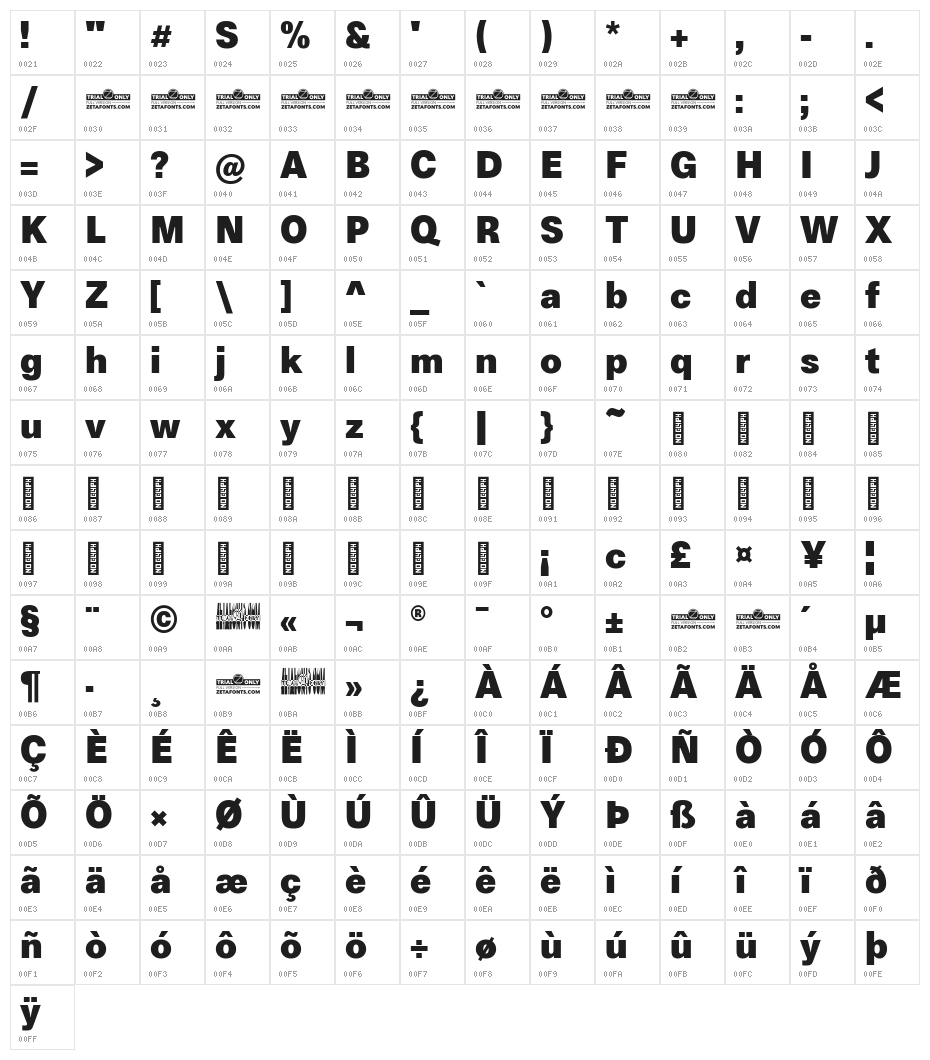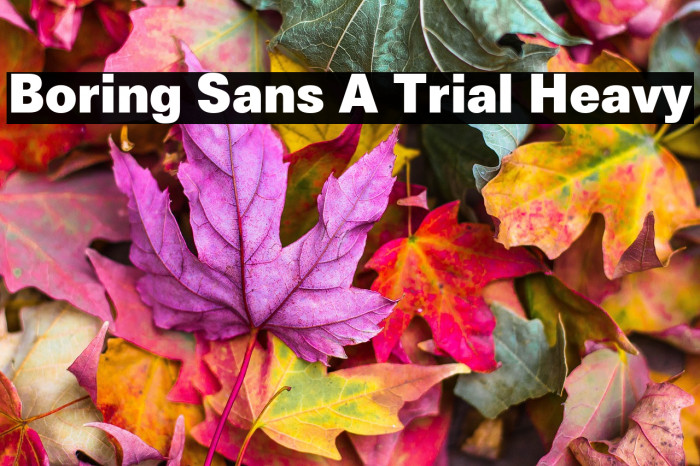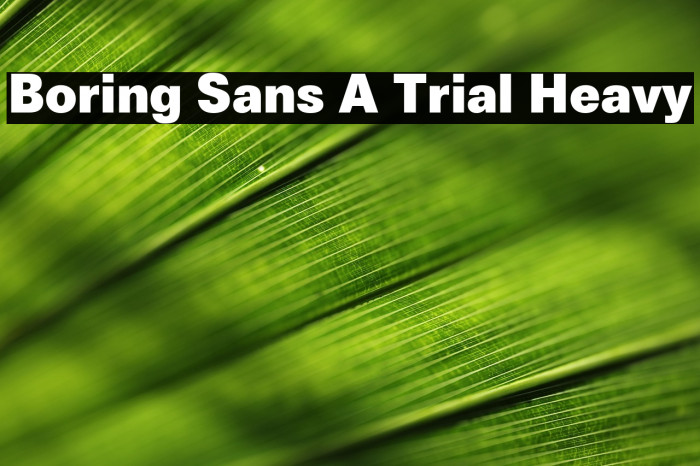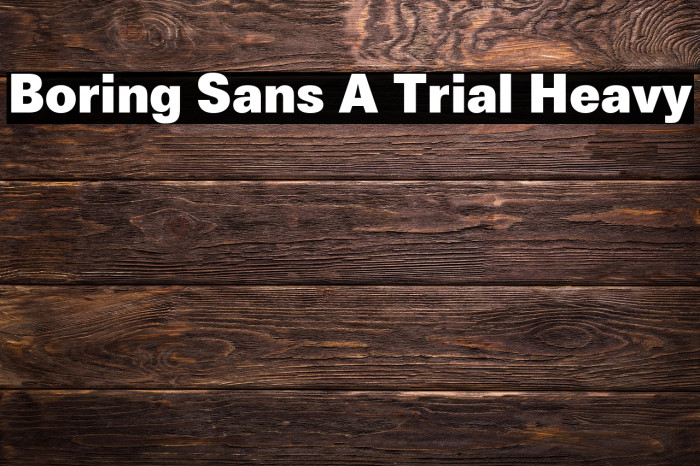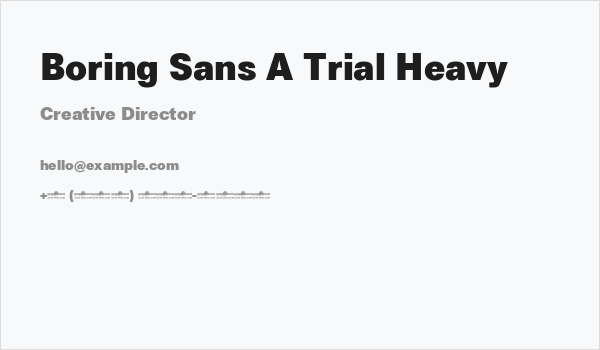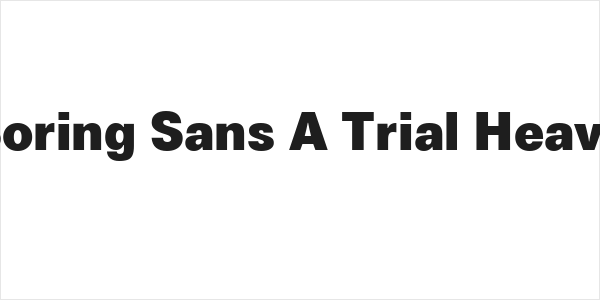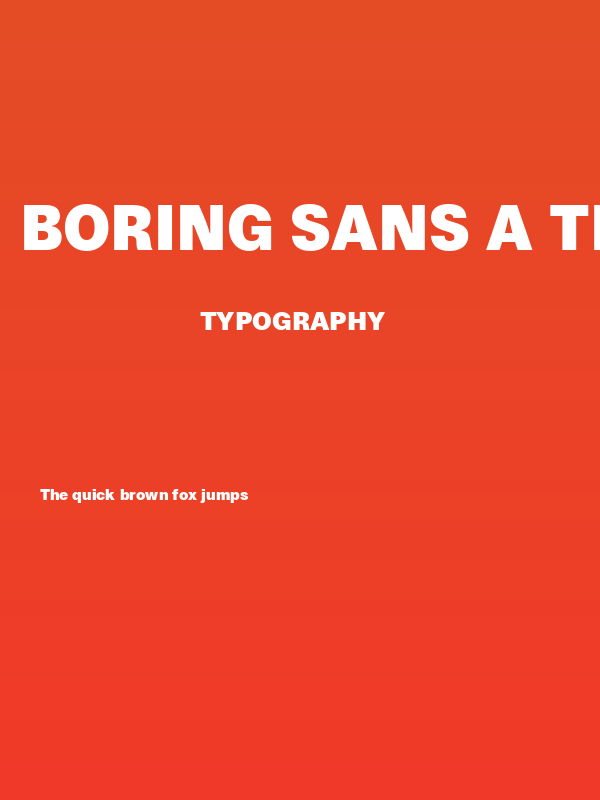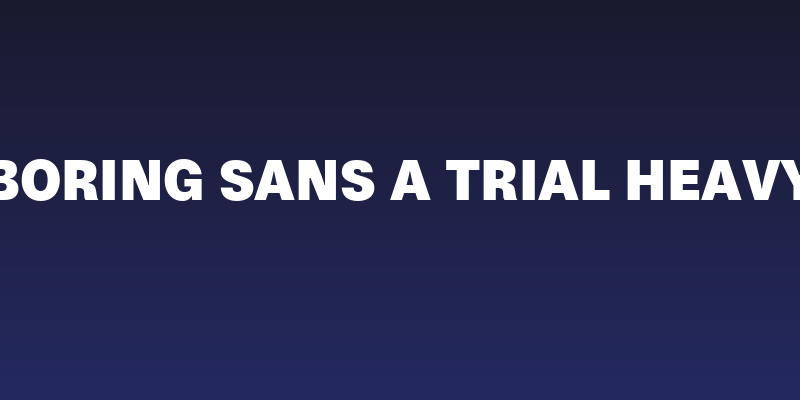
Boring Sans A Trial Heavy Font
Boring Sans A Trial Heavy Description
This typeface presents a bold and robust appearance, characterized by its heavy weight and strong presence. The letters are crafted with a sans-serif style, offering a clean and modern look. The uppercase and lowercase letters maintain a consistent thickness, providing a uniform and cohesive appearance. The numerals and special characters are designed to match the boldness of the alphabet, ensuring readability and impact. This font is ideal for making statements, with its thick strokes and solid structure conveying confidence and clarity.
| Proposed Projects | Ideal for headlines, posters, branding, and advertising where a strong visual impact is needed. |